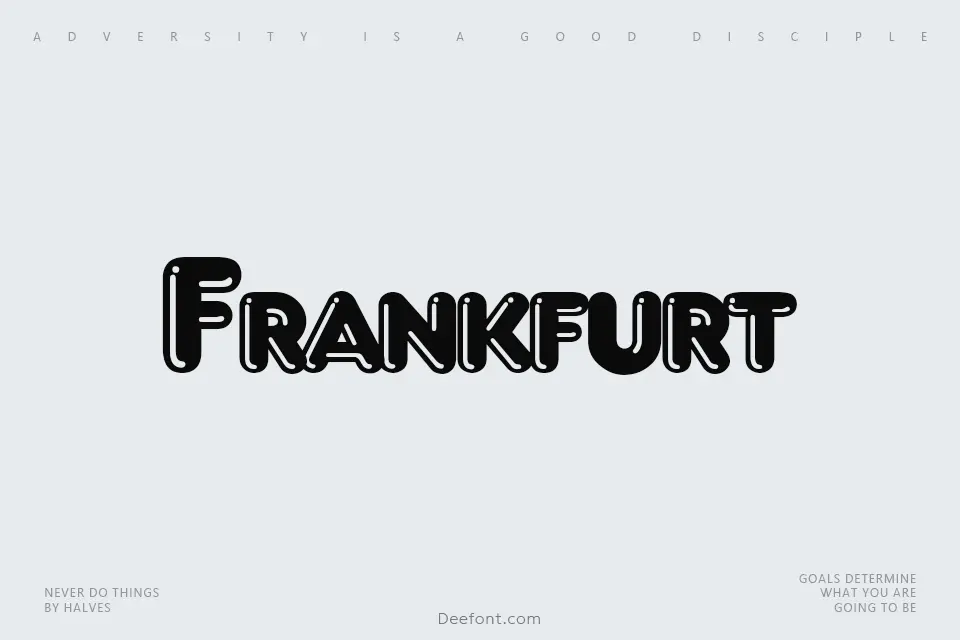
Frankfurt Font
Frankfurt Font is a versatile typeface family that comes in multiple styles, including sans serif and script variations. The sans serif version features clean, modern lines with distinctive curved terminals, making it highly readable and adaptable for various design purposes. The font family includes multiple weights, allowing for flexible usage across different applications. Its bold, rounded characters create a playful yet professional appearance, perfect for both display and body text. The script version offers a modern, clear style ideal for creative projects like logos, invitations, and decorative typography. Frankfurt’s balanced design and versatility make it a valuable choice for designers seeking both functionality and aesthetic appeal.